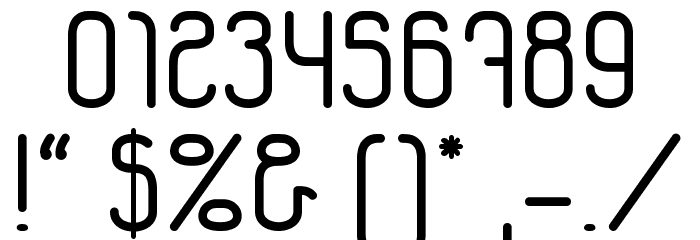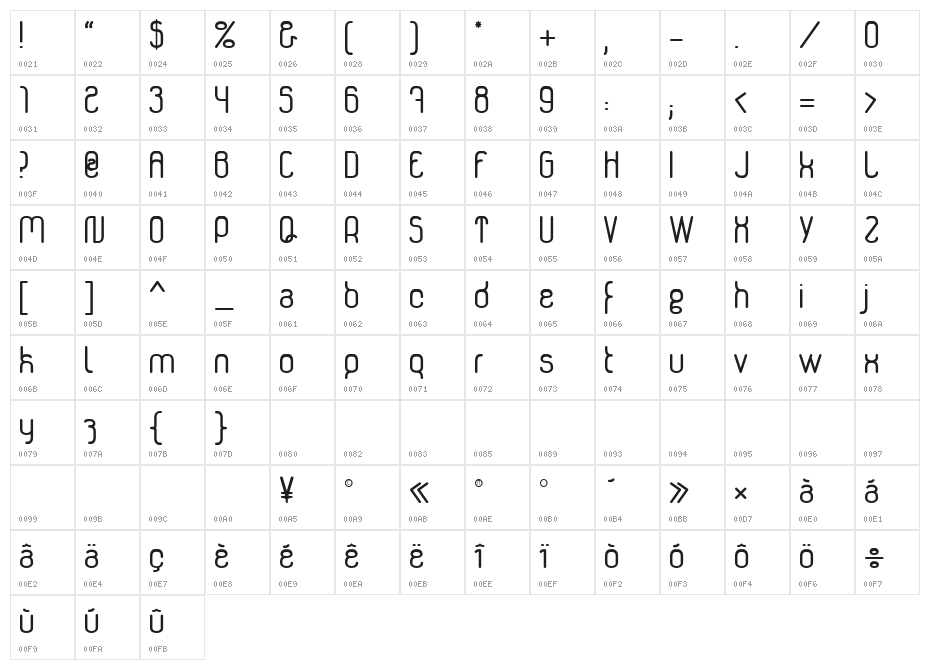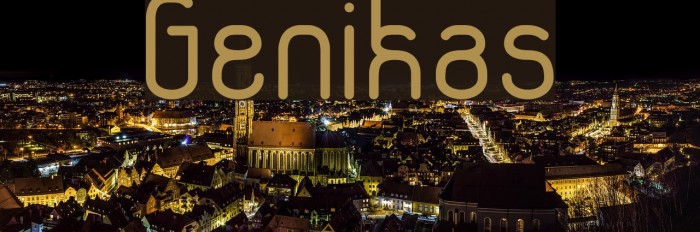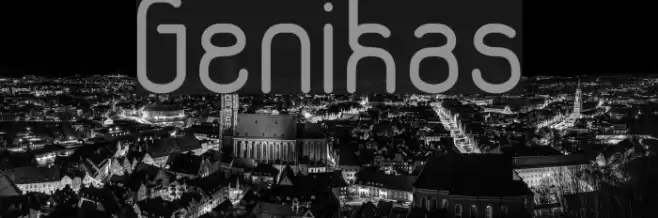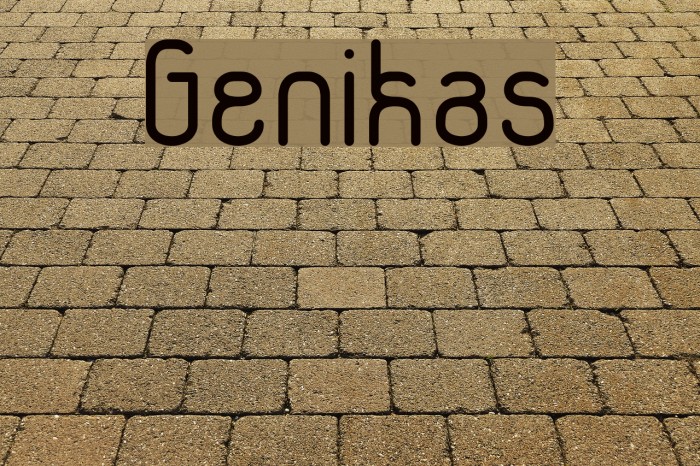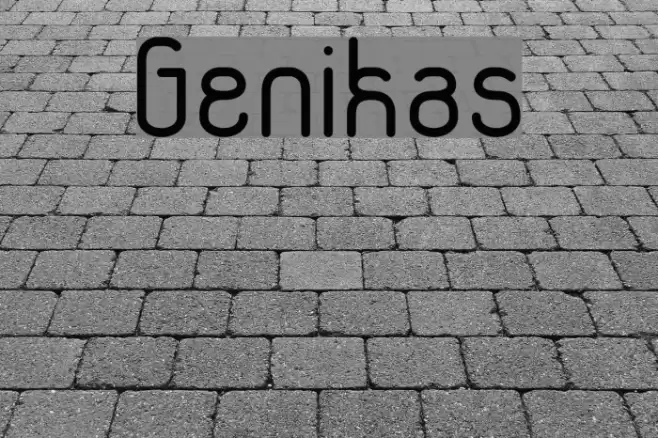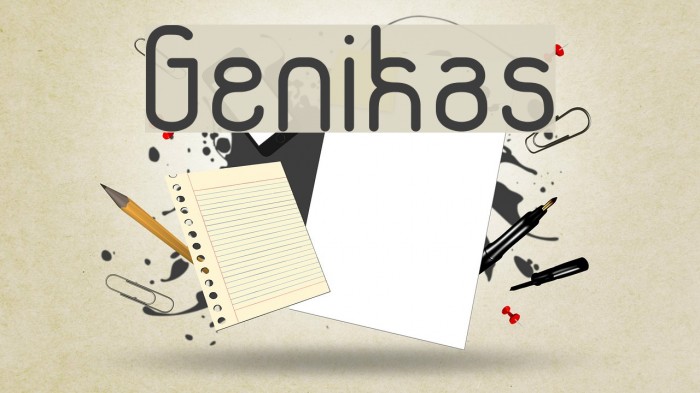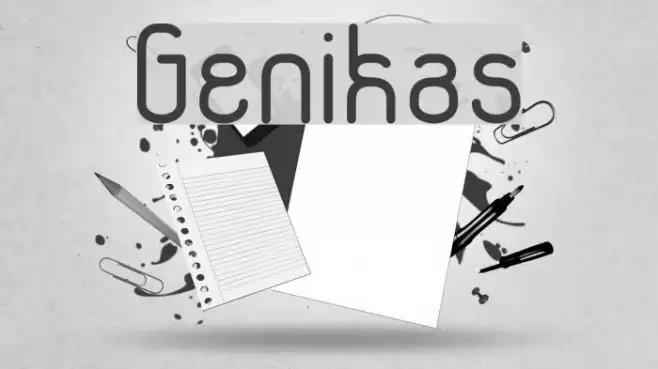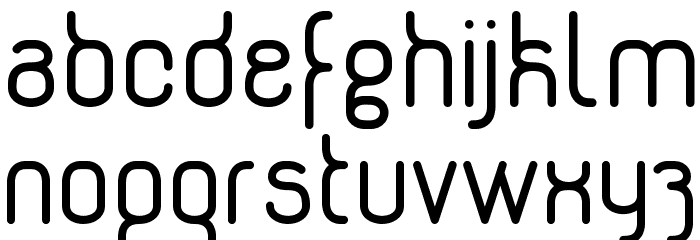
Genikas Font
Genikas Description
This font features a modern and geometric design with rounded edges and a clean, minimalist aesthetic. The characters are uniform in width, creating a harmonious and balanced appearance. The uppercase letters have a distinctive, futuristic look, while the lowercase letters maintain a consistent style that complements the overall design. The numerals are clear and easy to read, with a similar rounded structure. Special characters are well-integrated, maintaining the font's cohesive style. This font is ideal for projects that require a contemporary and sleek appearance.
| Use Case | Logos, Headlines, Digital Interfaces |
| Proposed Projects | Ideal for tech branding, modern advertising, digital interfaces, and futuristic design projects. |